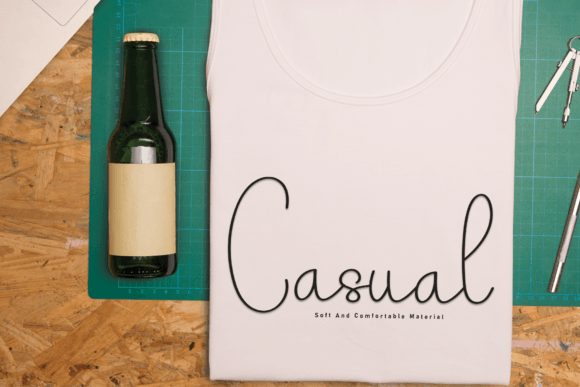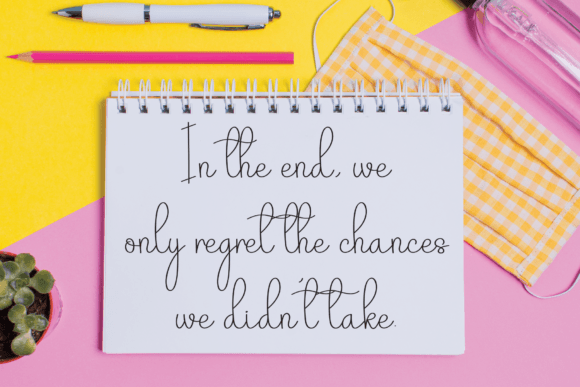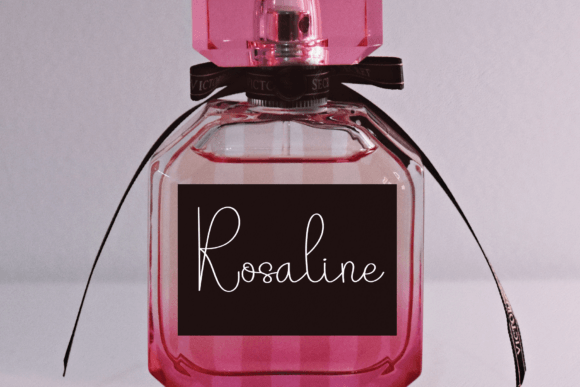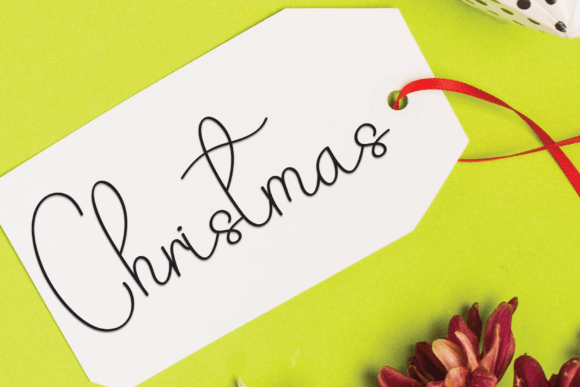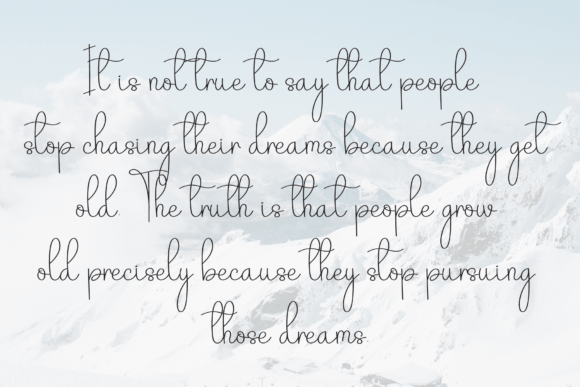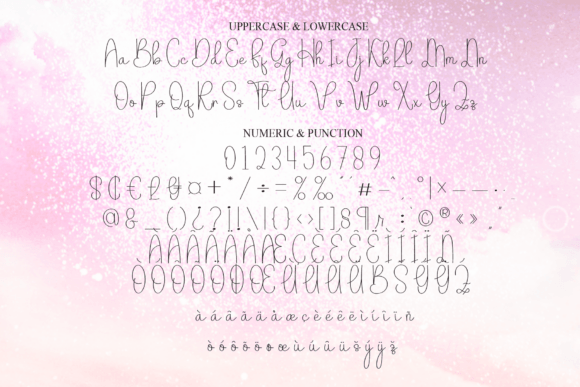
Fantastic Font: Add a Touch of Whimsy to Your Creations
Are you tired of using the same old fonts in your designs? Do you want to add a touch of personality and whimsy to your creations? Look no further than the Fantastic Font, a charming handwritten display font that’s full of sweet friendliness. In this article, we’ll dive into the world of this delightful font and explore how it can bring your designs to life.
Handwritten fonts have a way of adding a personal touch to any design. They’re like a warm hug on a cold day – comforting, inviting, and full of character. And among handwritten fonts, the Fantastic Font stands out for its unique blend of playfulness and sophistication. With its flowing curves and delicate strokes, this font is perfect for designers and crafters who want to add a dash of whimsy to their creations.
Perfect for Wedding Invitations and Personal Cards
One of the most popular uses for the Fantastic Font is in wedding invitations and personal cards. There’s something special about receiving a beautifully designed invitation that sets the tone for a special occasion. With this font, you can create stunning invitations that are sure to impress your loved ones. The font’s sweet and friendly vibe makes it perfect for:
- Wedding invitations
- Birthday cards
- Anniversary cards
- Holiday greetings
- Personalized stationery
Breathe Life into Your Designs
The Fantastic Font is more than just a font – it’s a design element that can breathe life into your creations. With its unique character and playful vibe, it can add a touch of magic to:
- Infographics
- Digital art and illustrations
Delightful Details
So what makes the Fantastic Font so special? It’s all in the details. From the flowing curves to the delicate strokes, every aspect of this font has been carefully crafted to create a truly unique and delightful experience. Here are just a few of the features that make this font stand out:
- Unique character set
- Hand-painted feel
- Playful and whimsical vibe
- High-quality design
Tips for Using the Fantastic Font
Now that you’re excited about the Fantastic Font, here are some tips for using it in your designs:
- Pair it with a simple background to make it stand out
- Use it in combination with other fonts for a unique look
- Experiment with different colors and textures
In conclusion, the Fantastic Font is a charming handwritten display font that’s perfect for designers and crafters who want to add a touch of whimsy to their creations. With its unique character, playful vibe, and delightful details, it’s sure to bring your designs to life in the most delightful manner. So why wait? Indulge in every curve, every stroke, and every delightful detail of this font, and watch your creations come alive!